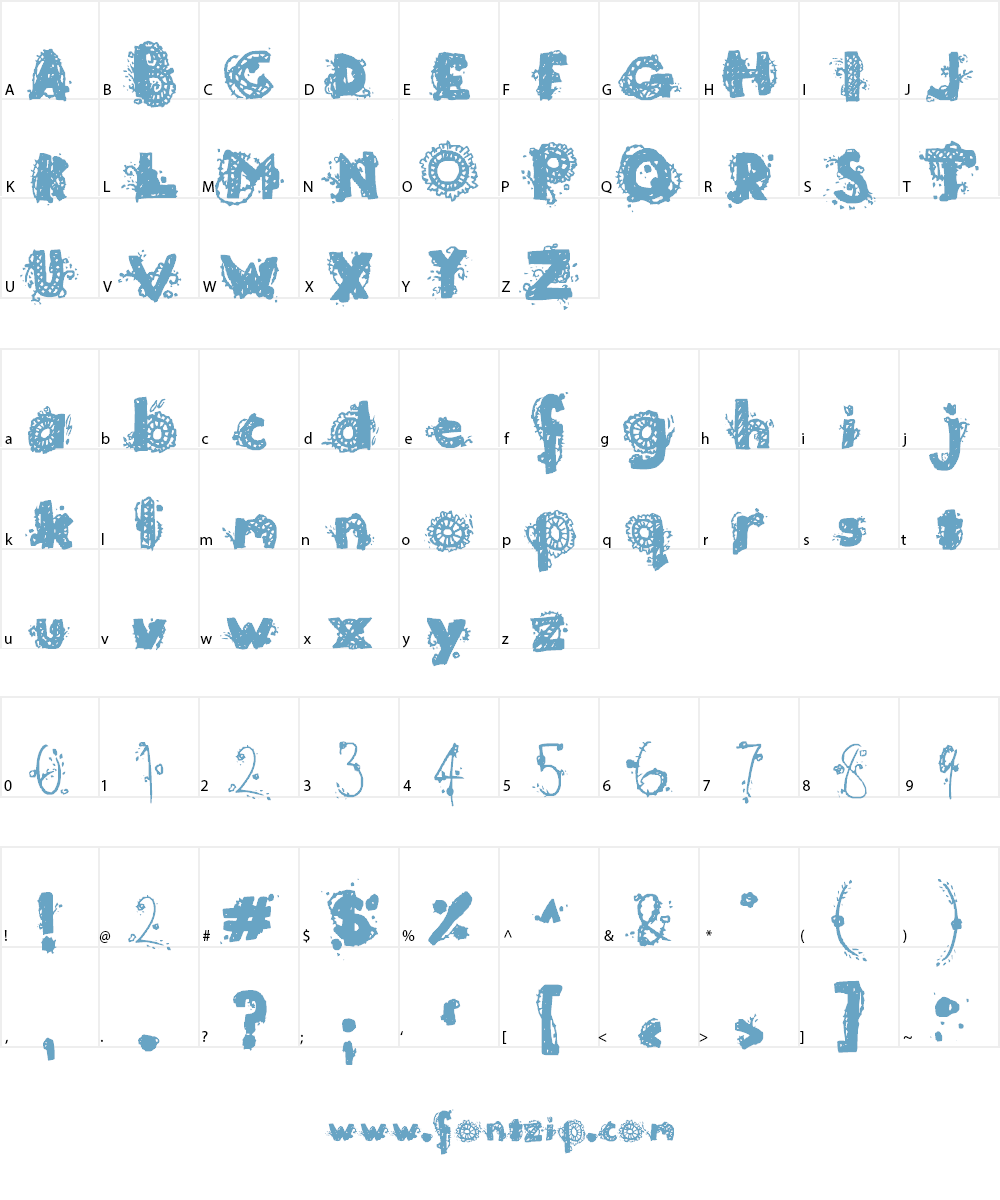
For those who need a little background information on what this font is based on,
is a good place to start. If you see, the patterns and decorations in this font are based on the picture in the song. (Actually, most of the patterns are from this image:
which has Rin and Len in 1925 theme)
From the lyrics, I think the song is based upon the world we have (or at least had in 1925) where everything has a price. Our obsession with wealth and social standings, the onset of the Great Depression, capitalization, fascism, democracy etc. Though, the lyrics are extremely vague and as far as I know, the person who made the song hasn't told us what any of it means... But still an awesome song!